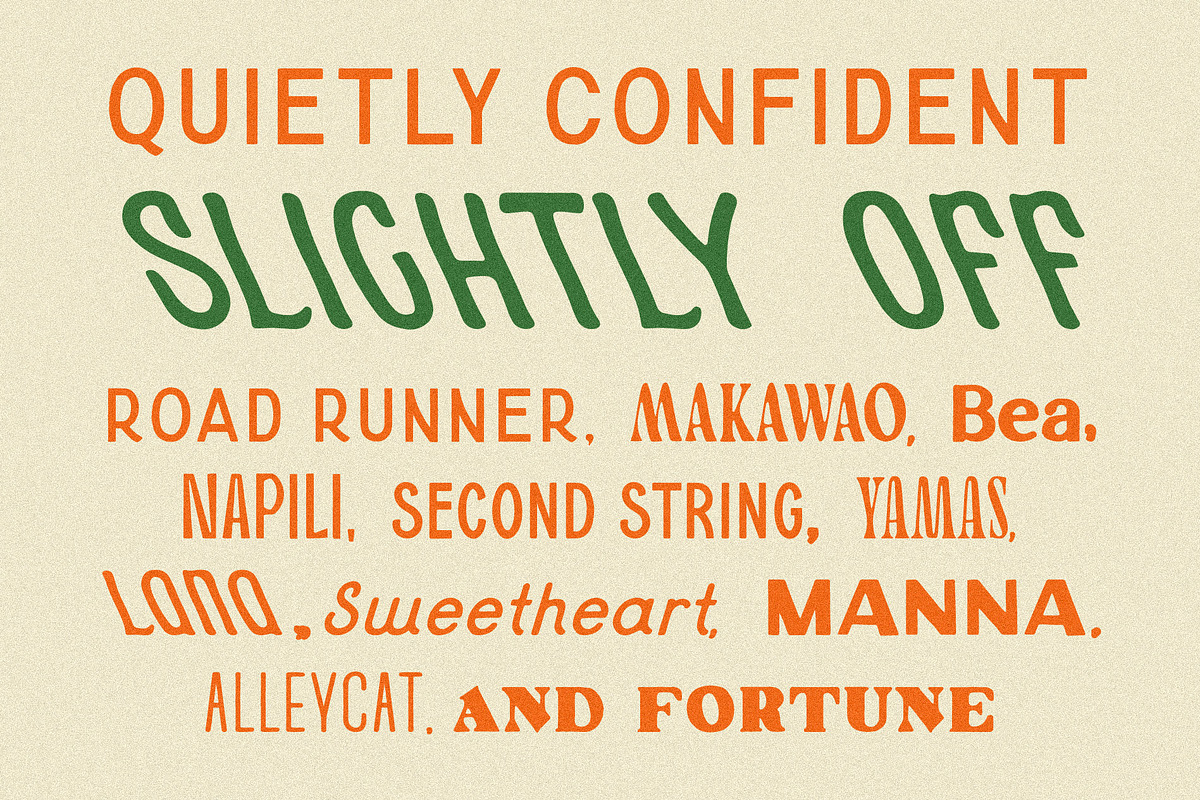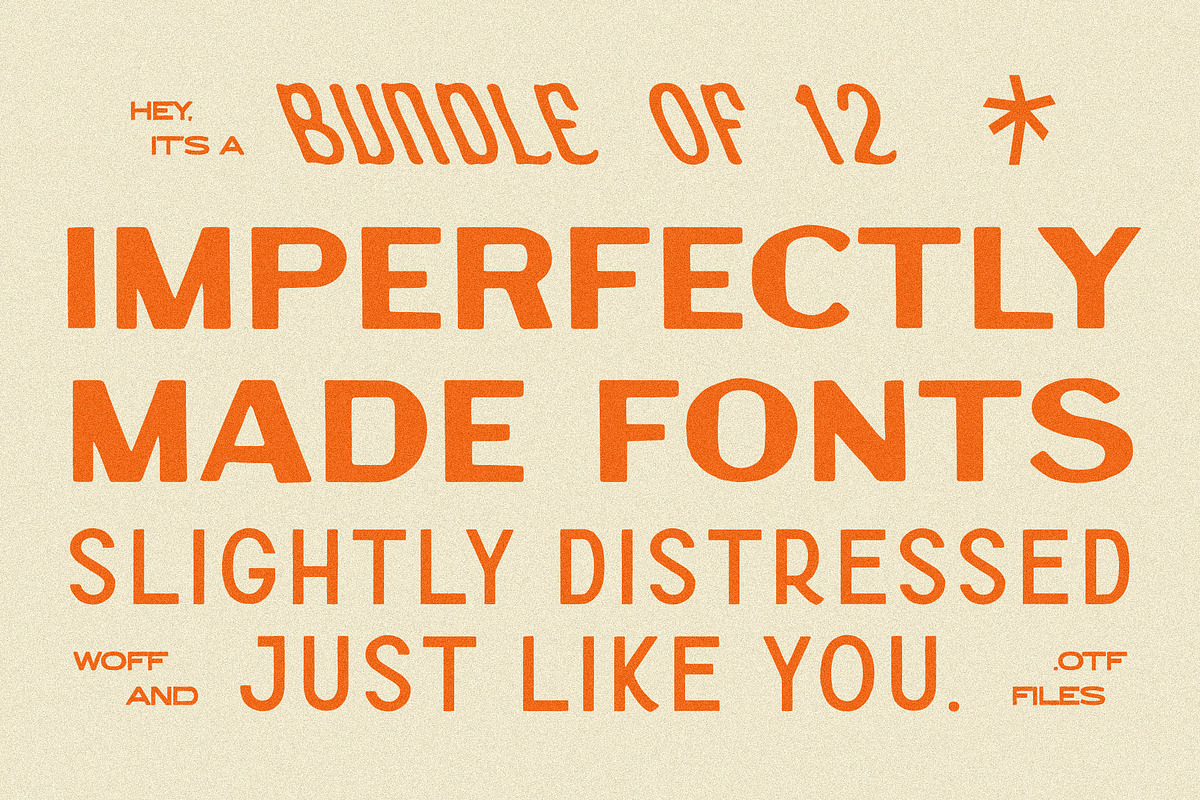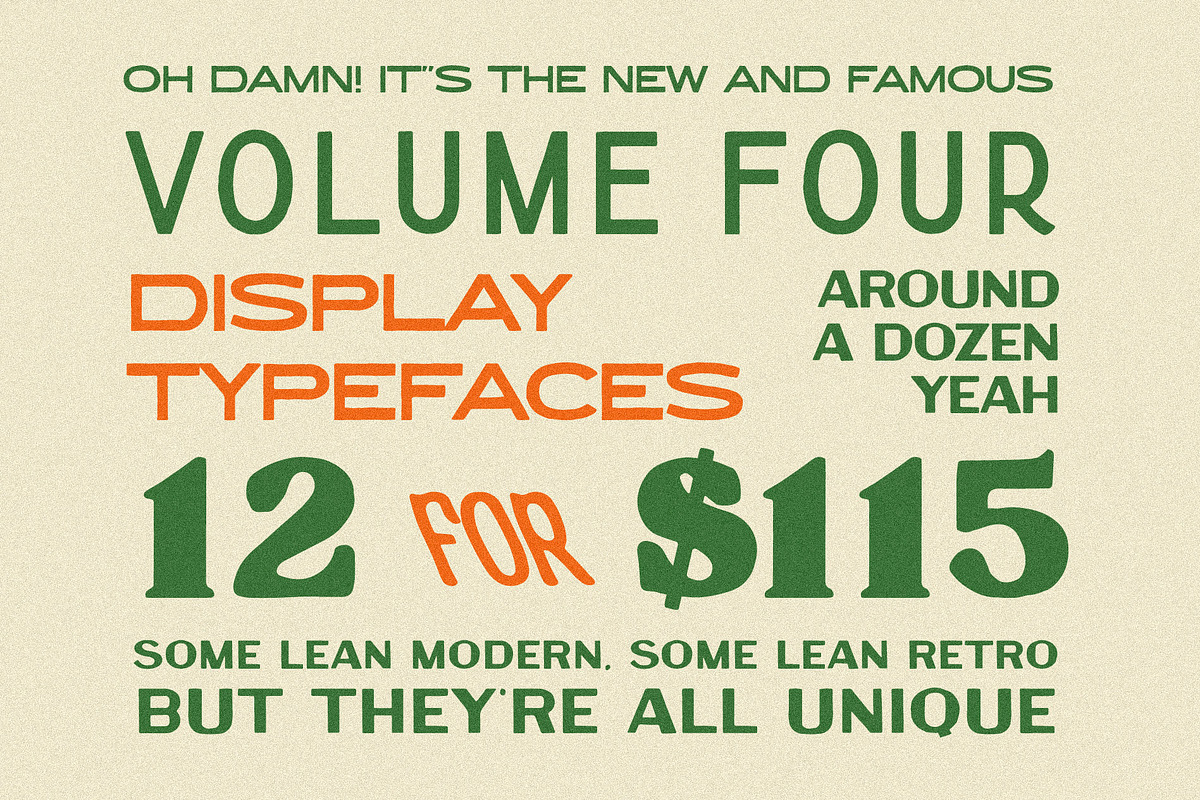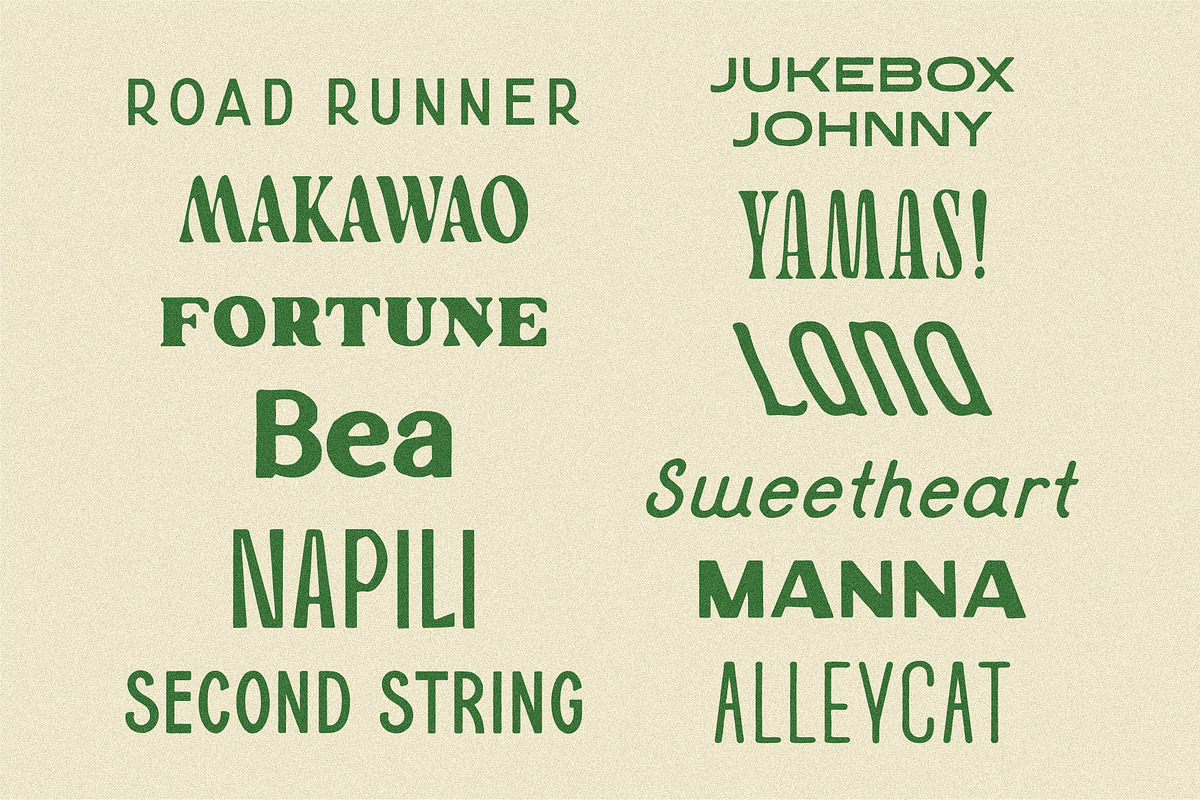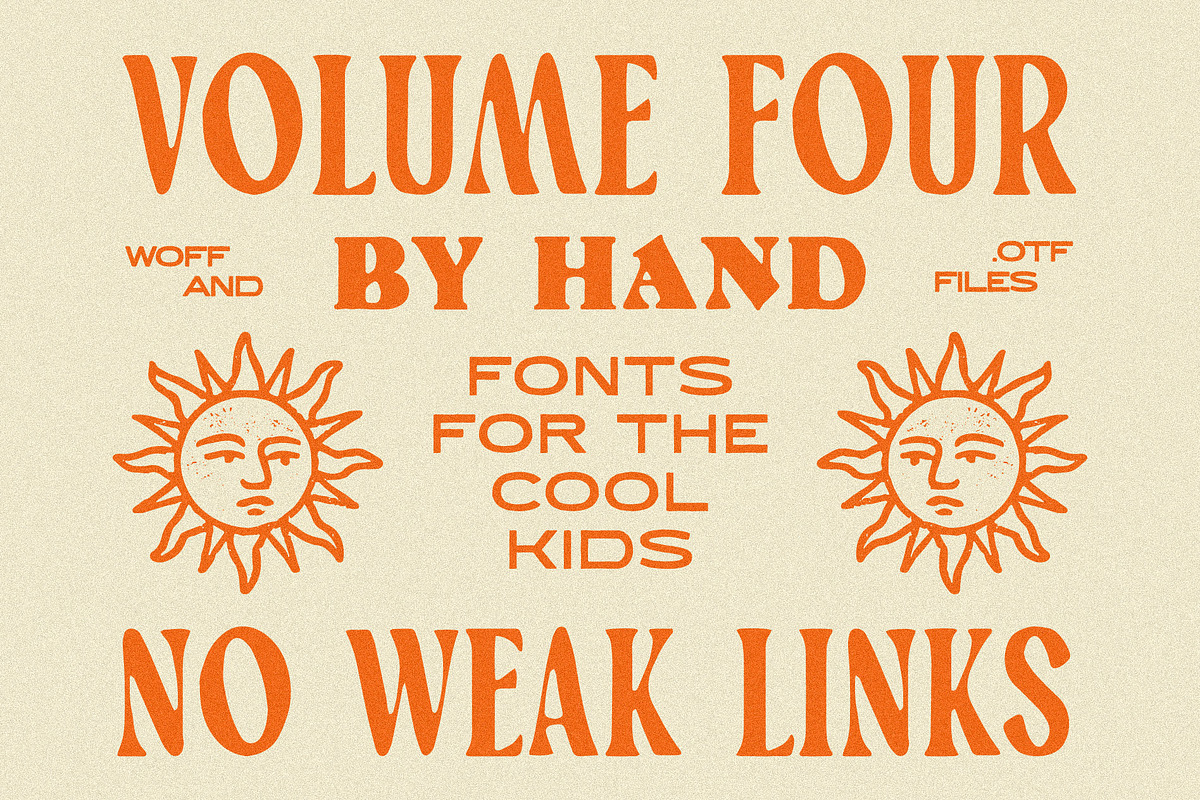
Type Volume Four
Volume four is a structured, mid-century feel. Some lean modern, some lean retro, but they’re all unique and hand-drawn.
Type Volume Four: Road Runner, Makawao, Fortune, Bea, Napili, Alleycat, Jukebox Johnny, Yamas!, Lana, Sweetheart, Manna and Second String Each font includes: Uppercase letters and digits Full punctuation Support for 20-69 languages.